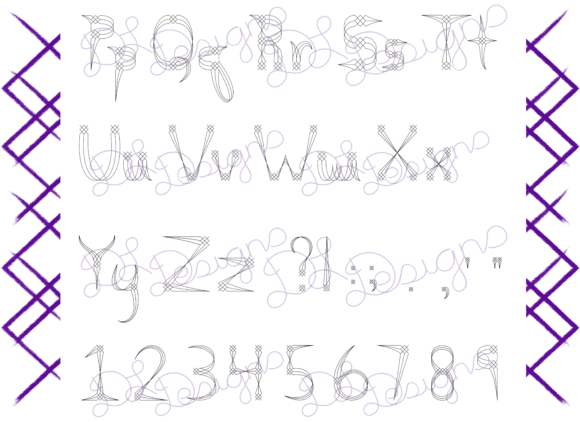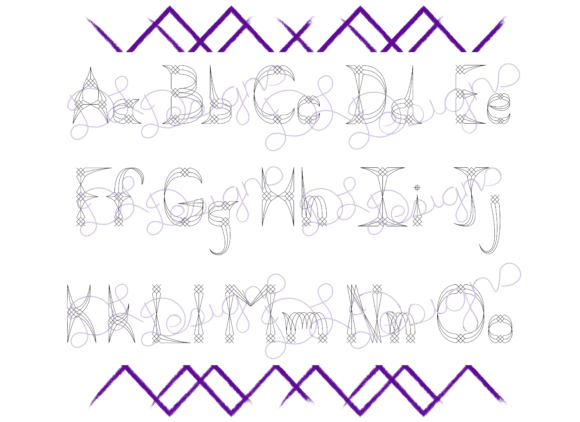
The DiamonX Font: A Game-Changer for Your Design Projects
I’ll never forget the time I was working on a project for a client who wanted a bold, eye-catching font to make their brand stand out. I spent hours scouring the internet for the perfect font, but nothing seemed quite right. That was until I stumbled upon DiamonX – a cool and unique display font that instantly caught my attention. In this article, I’ll share my experience with DiamonX, its features, and how to make the most of it in your design projects.
An Honest Review of DiamonX
So, what makes DiamonX so special? Let’s dive into the good stuff and some minor quirks I’ve encountered.
What I Love About DiamonX ✨
- ✅ Unique and interesting design that’s sure to grab attention
- ✅ Highly versatile and suitable for a wide range of design projects
- ✅ Easy to read, even in large blocks of text
- ✅ Works well in both digital and print formats
Some Minor Quirks 🤔
- ⚠️ Limited use in body text due to its bold and attention-grabbing nature
- ⚠️ May not work well with very short or very long words
- Experiment with OpenType features, such as stylistic alternates, to add some extra flair to your design
Even in Microsoft Word, DiamonX can add a touch of elegance to your documents.
The Story Behind DiamonX
While I couldn’t find any information on the exact designer behind DiamonX, it’s clear that this font was created with passion and attention to detail. Perhaps the designer was inspired by the geometric shapes and bold lines of modern architecture? Or maybe they wanted to create a font that’s both fun and sophisticated? Whatever the inspiration, DiamonX is a true gem in the world of typography.
Q: What type of projects is DiamonX best suited for?
A: DiamonX is a versatile font that can be used in a wide range of projects, from posters and flyers to logos and branding materials.
Q: Can I use DiamonX for body text?
A: While DiamonX is a beautiful font, it’s best used for headlines and titles due to its bold and attention-grabbing nature. For body text, consider using a more traditional font.